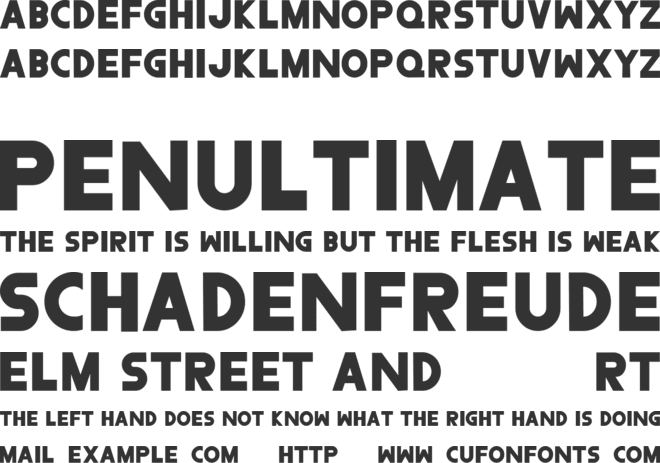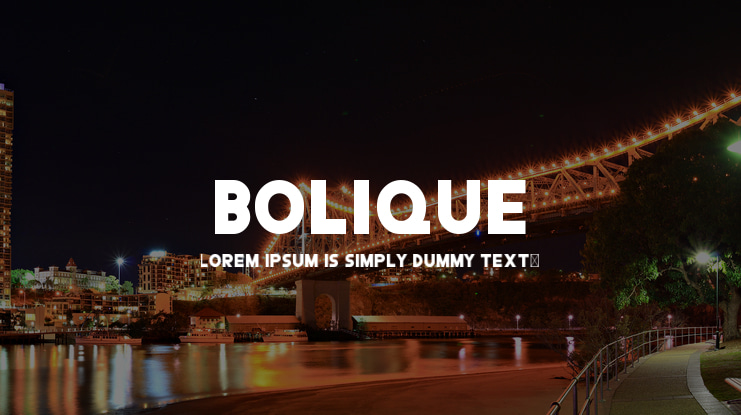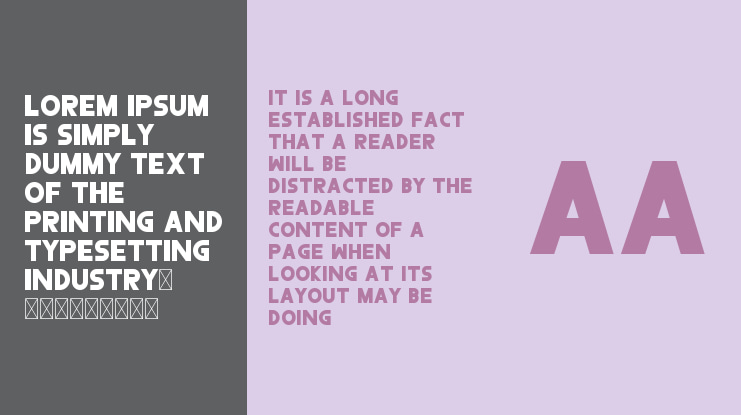
Bolique Font
Bolique is a simple classy bold all-caps Sans Serif font. Use to create eye-catchy headings in graphic design projects. If you are a YouTuber, this font is perfect to create video thumbnails to get high CTR and views.